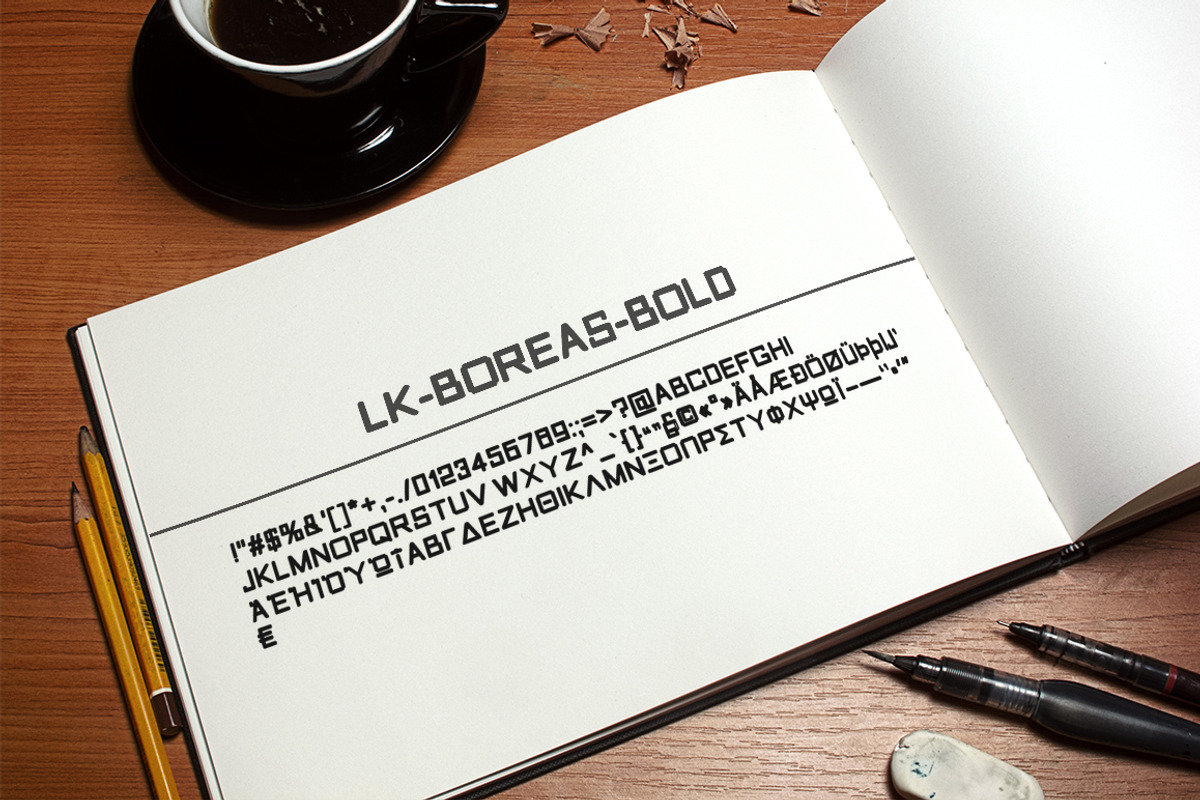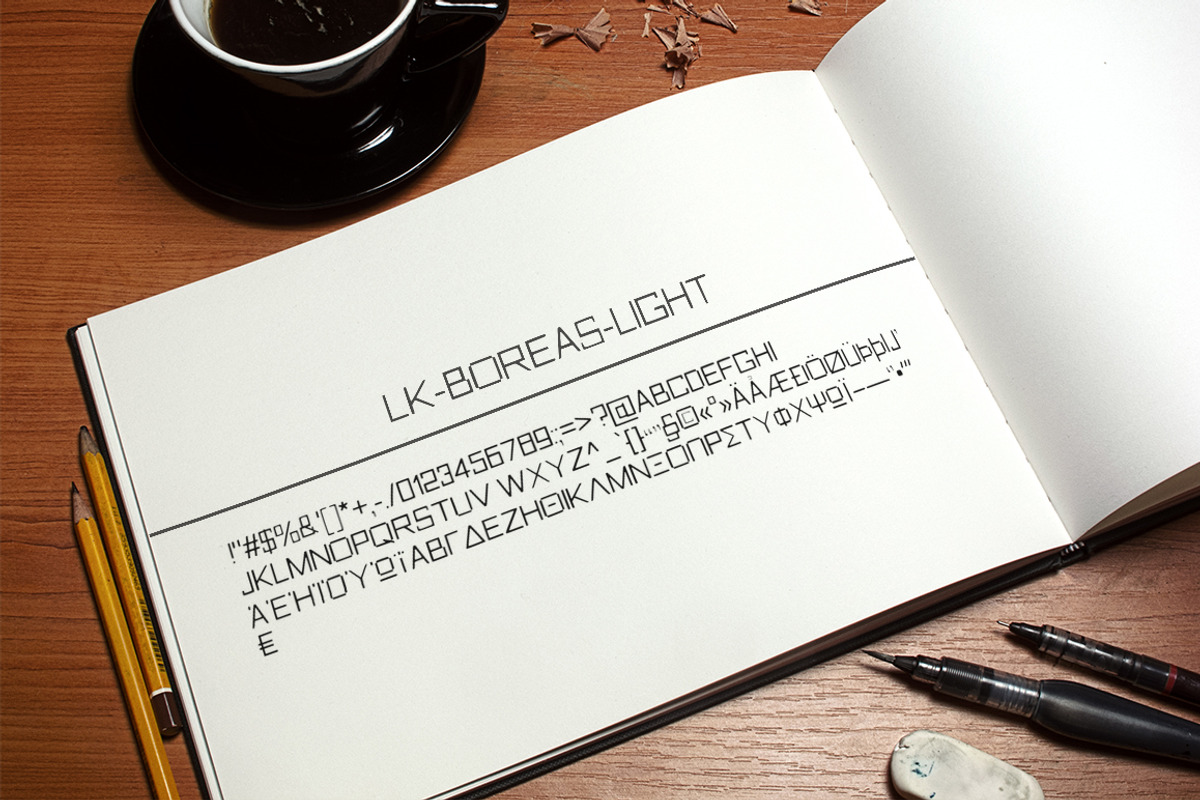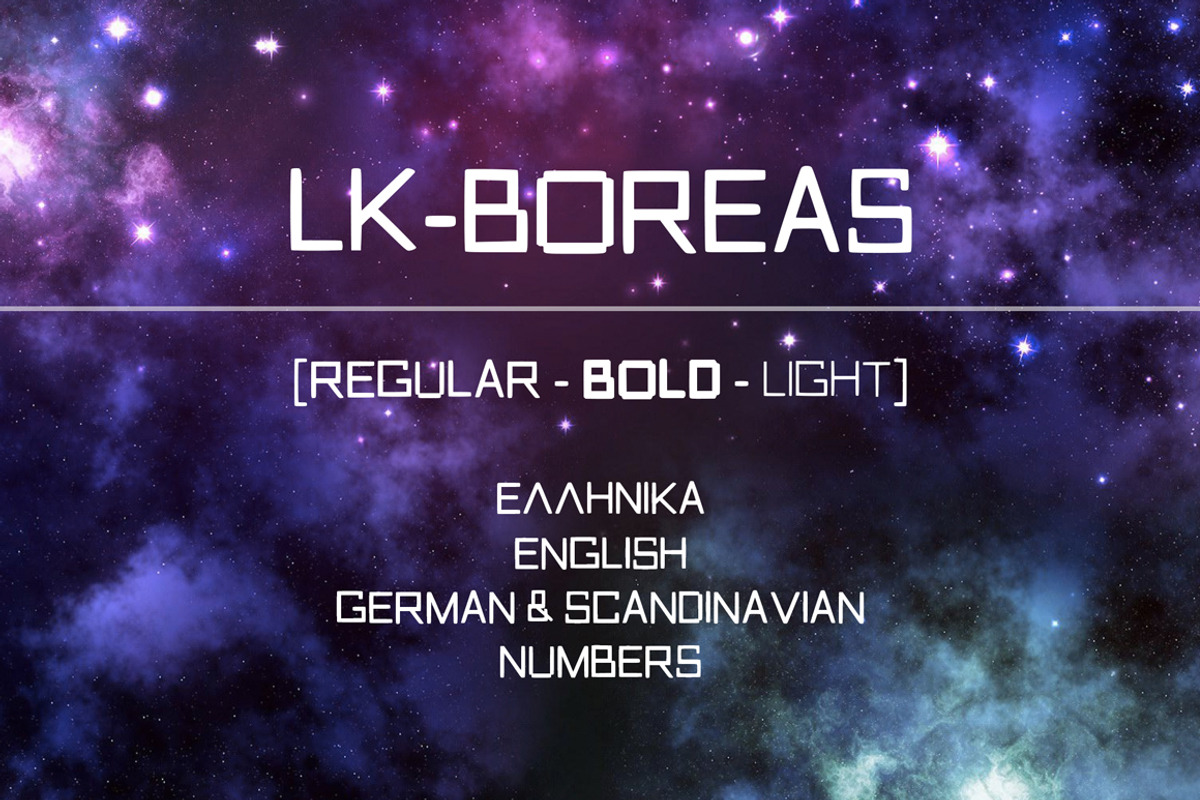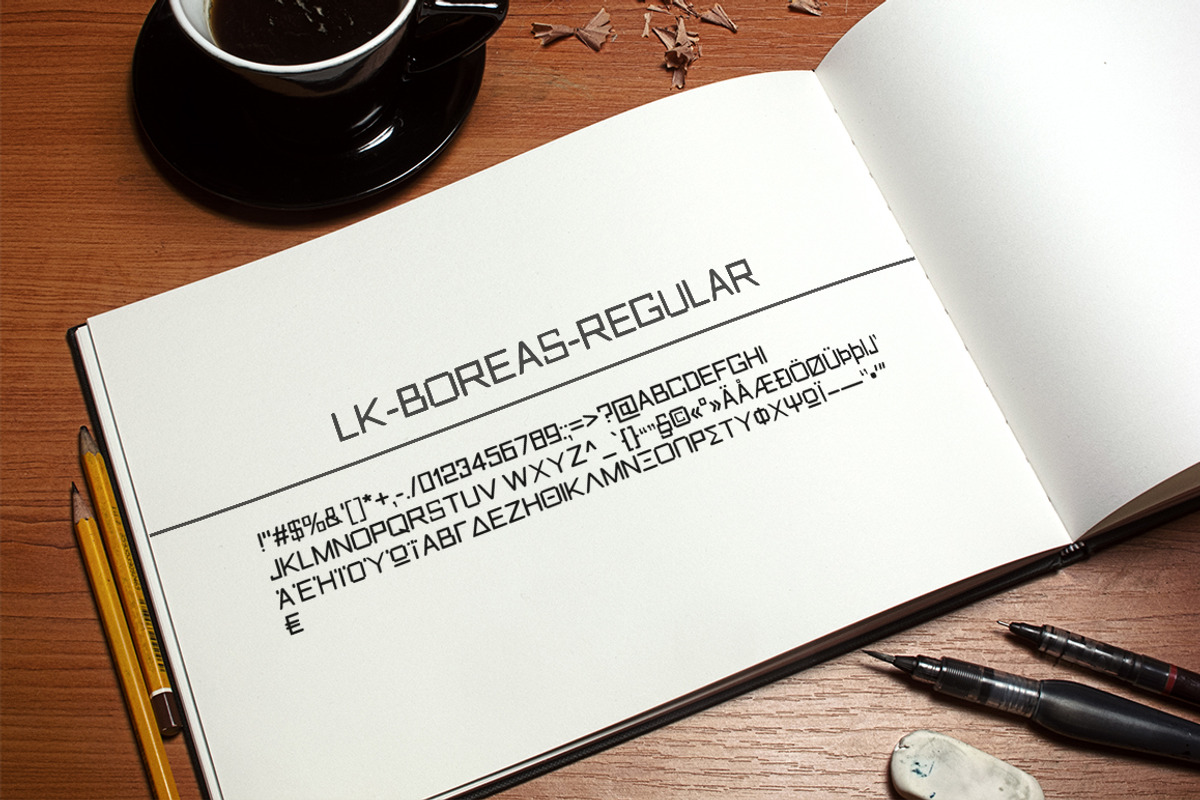
Boreas Square Display Font
Boreas Square Display Font by Elegrad Design Agency is a font selected for branding, posters, packaging, typography.
- Included are Boreas Regular Boreas Bold Boreas Light SUPPORT FOR GREEK CHARACTERS (see preview images) The package contains following fonts
Boreas Square Display Font by Elegrad Design Agency fits naturally into Branding, posters, packaging, typography.